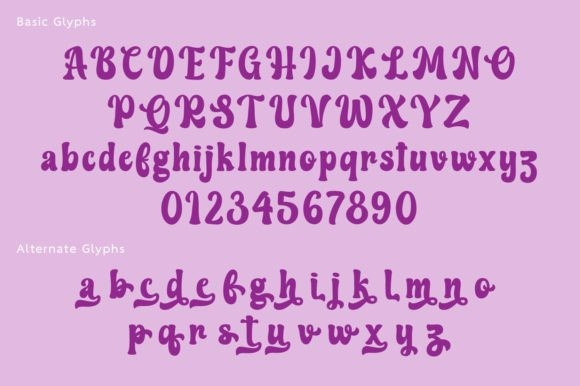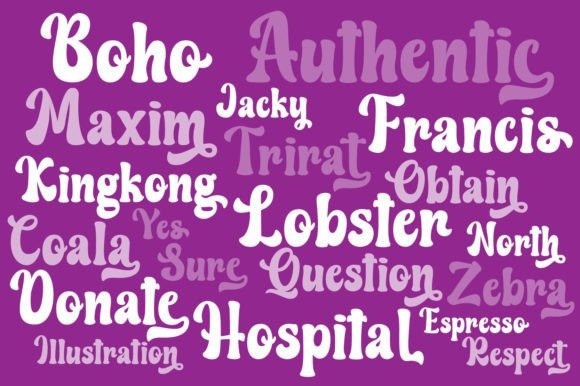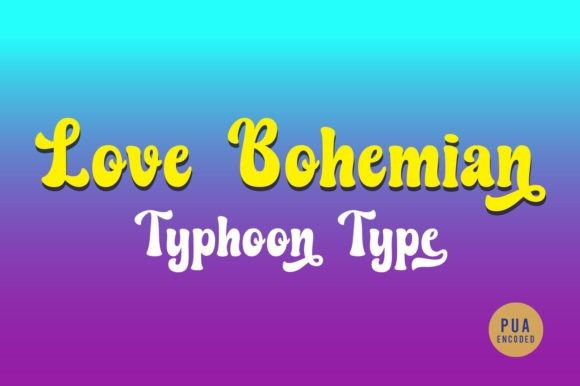
Love Bohemian Font
Love Bohemian Font is a captivating English font that exudes the essence of groovy style. Designed to stand out from the crowd, this font possesses an irresistible charm that is perfect for all types of advertising projects.
With its unique and playful appearance, Love Bohemian adds a touch of adorability to any design. Its fluid and curvaceous letterforms create a harmonious flow that effortlessly catches the eye.
Whether it’s a print ad, digital campaign, or any other advertising endeavor, Love Bohemian is the ideal choice to infuse a delightful and captivating vibe that leaves a lasting impression.This font is PUA encoded, which means you can access all of the glyphs and swashes with ease!